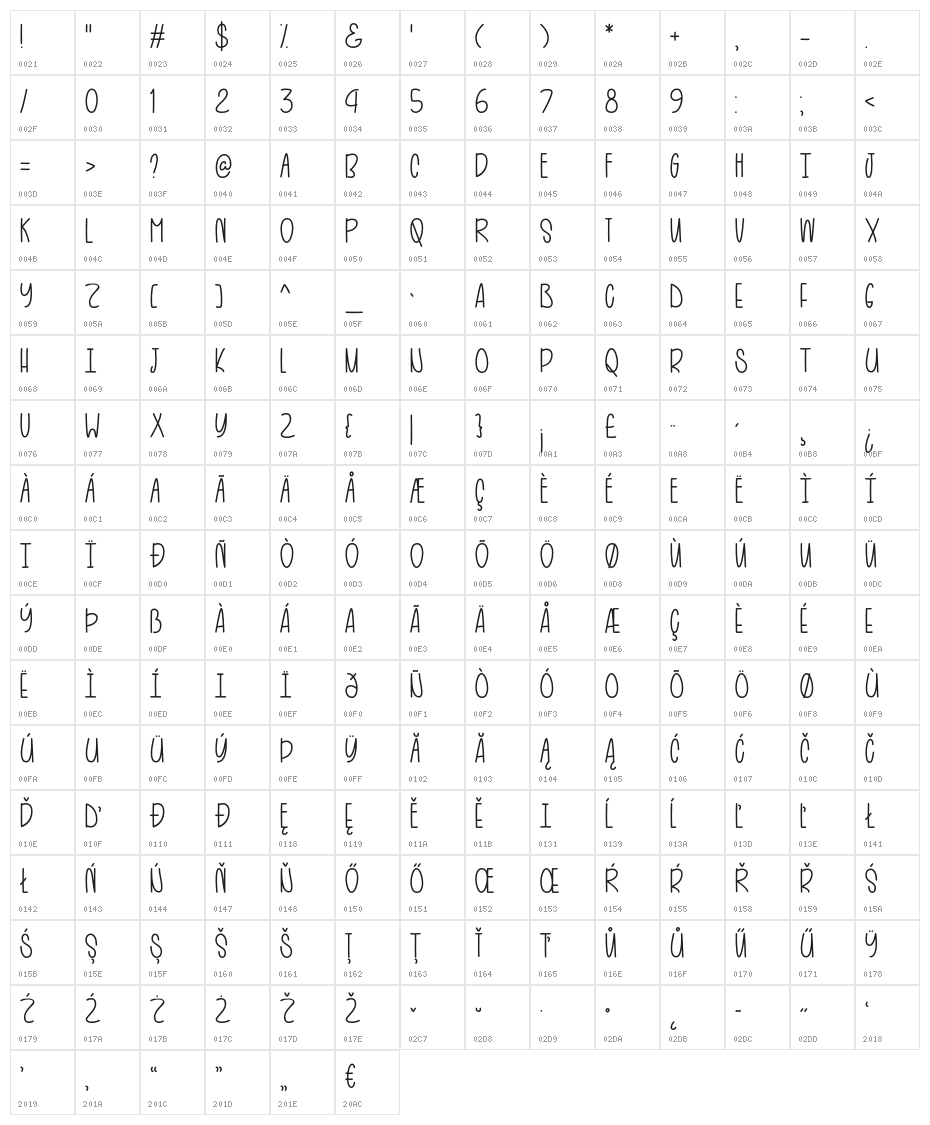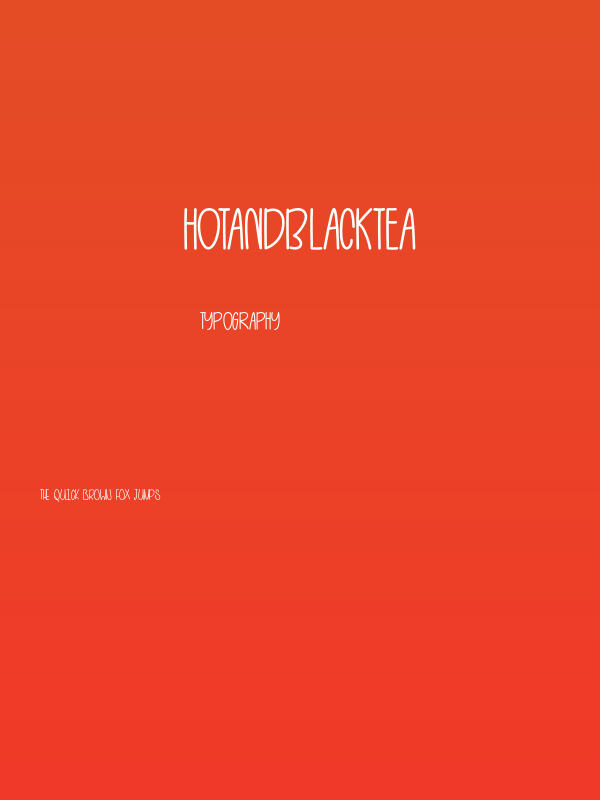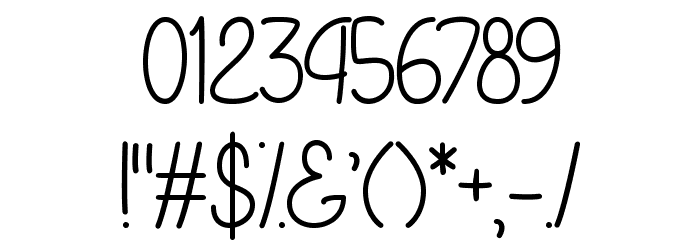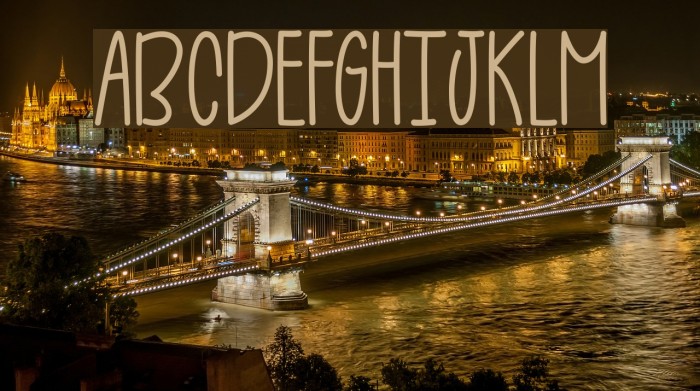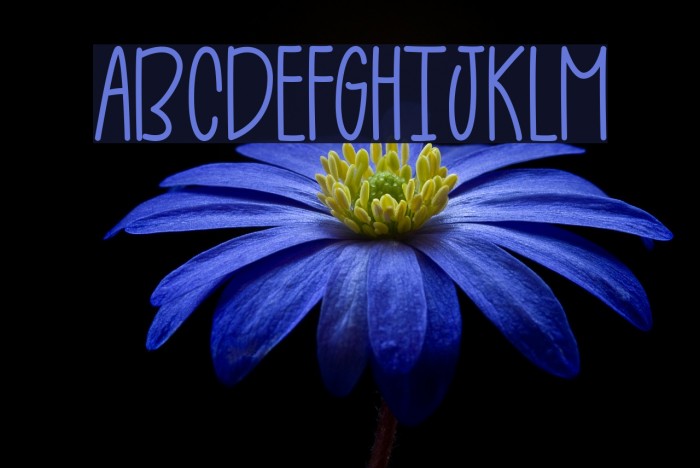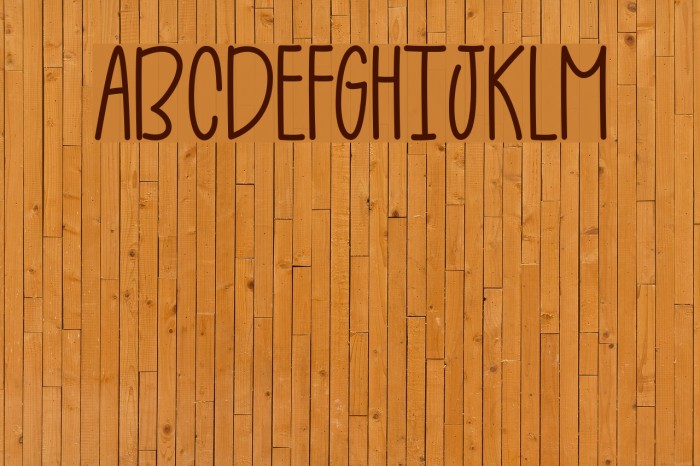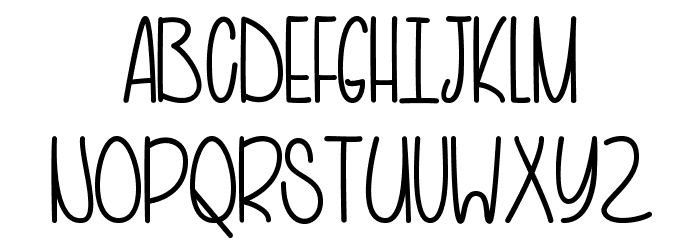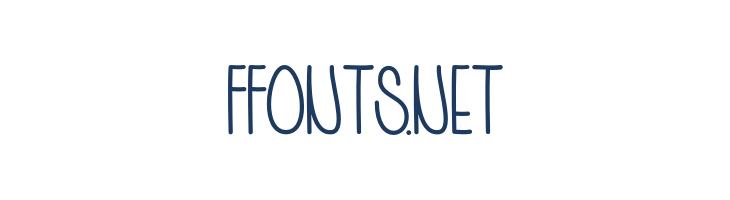
HotandBlackTea Font
HotandBlackTea Description
This font features a playful and casual handwritten style, characterized by its tall, narrow letters with a slight slant. The strokes are smooth and consistent, giving it a friendly and approachable appearance. The uppercase and lowercase letters maintain a uniform height, while the numerals and special characters blend seamlessly with the overall design. The font's informal nature makes it ideal for projects that require a personal touch, such as invitations, greeting cards, or playful branding. Its legibility and charm make it versatile for various creative applications.
| Use Case | Headlines, Invitations, Greeting cards |
| Proposed Projects | Ideal for invitations, greeting cards, playful branding, and creative projects. |